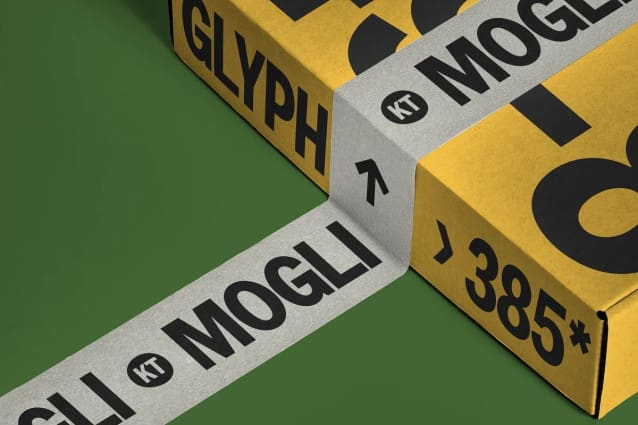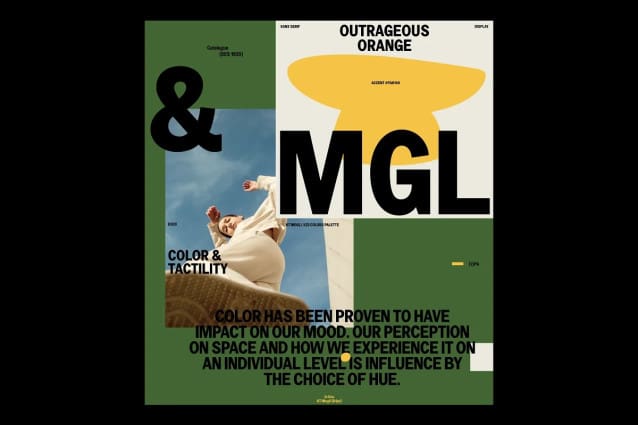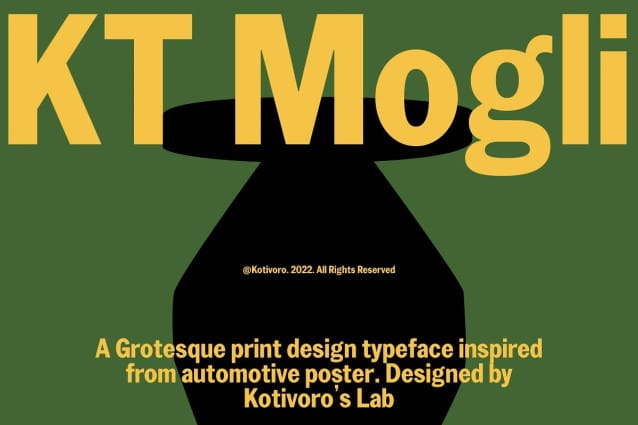
KT Mogli Font
KT Mogli Font is a Grotesque print design typeface inspired from automotive poster. KT Mogli is single style font for Headline & body copy. Stylistically it sits between the dynamic humanist sans and more rigid grotesk. The clear letterforms have broad proportions and are generously spaced. This font suitable with your projects such as poster, user interface, magazine, logo, apparel design, etc.